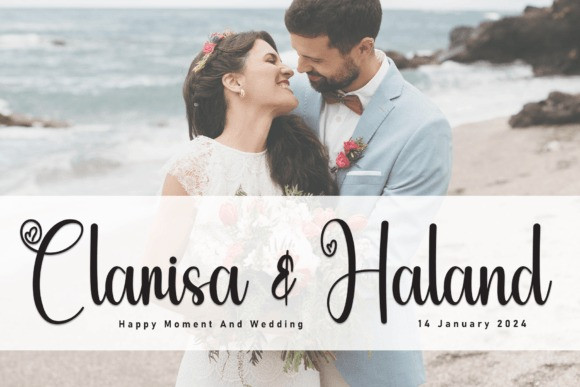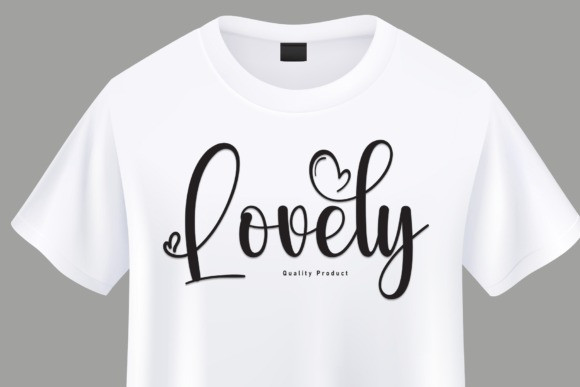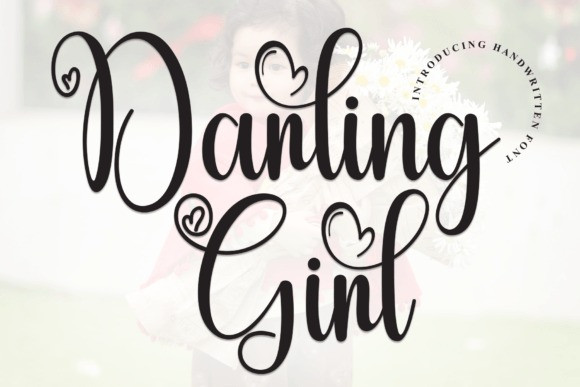
Darling Girl Script Font
Darling Girl Script Font is an enchanting handwritten font. This versatile script font has a wide spectrum of applications ranging from greeting cards to headlines and is guaranteed to add a romantic feel to your next project.